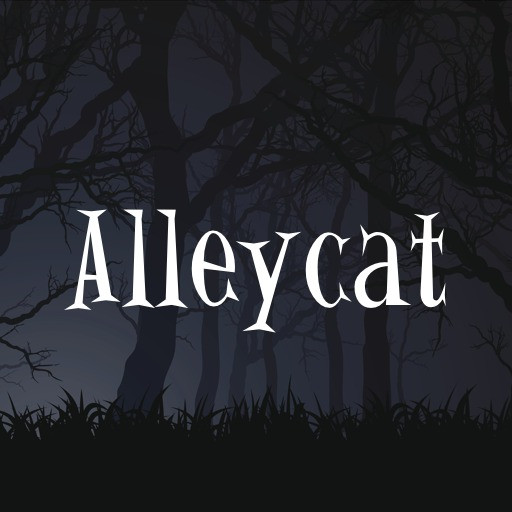
Alleycat Font
Alleycat Font Family was designed by Patricia Lillie. It would be a perfect choice to design posters, affiches, logos, t-shirt and magazine prints, eye-pleasing typographic designs and more.